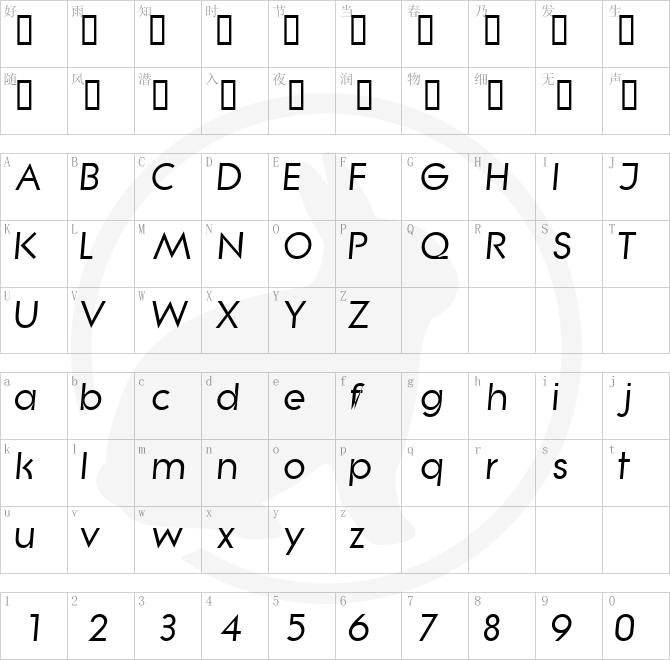
- Font Name:SaborSSK
SaborSSK-Italic.ttf is a very beautiful artistic font, SaborSSK-Italic.ttf is widely used in the design and printing of various books and pictures,SaborSSK-Italic.ttf has a strong visual impact,SaborSSK-Italic.ttf is a commonly used font in newspapers, magazines and books, and is used in posters, e-commerce Poster design, store design, logo design, font design and other fields.SaborSSK-Italic.